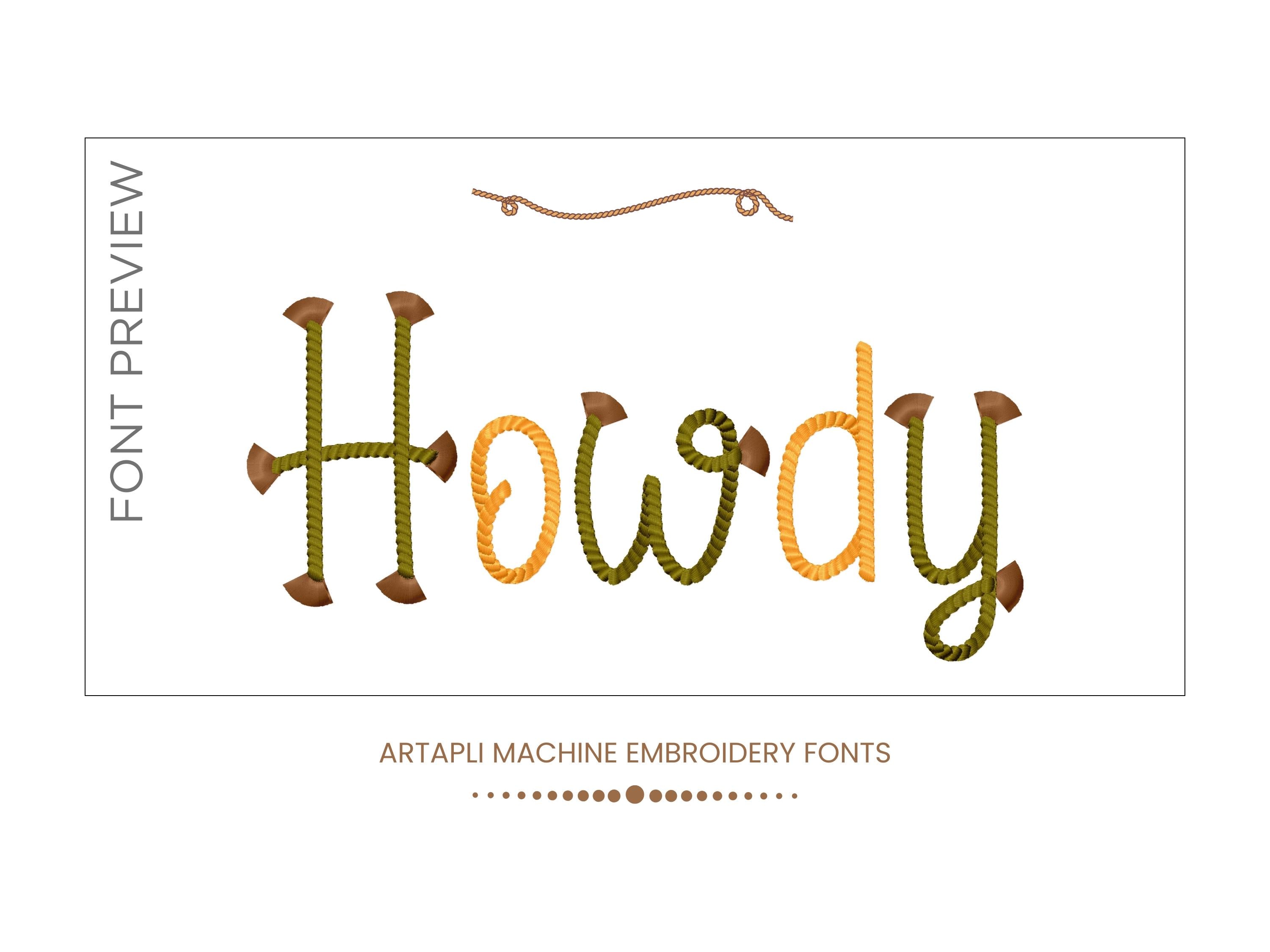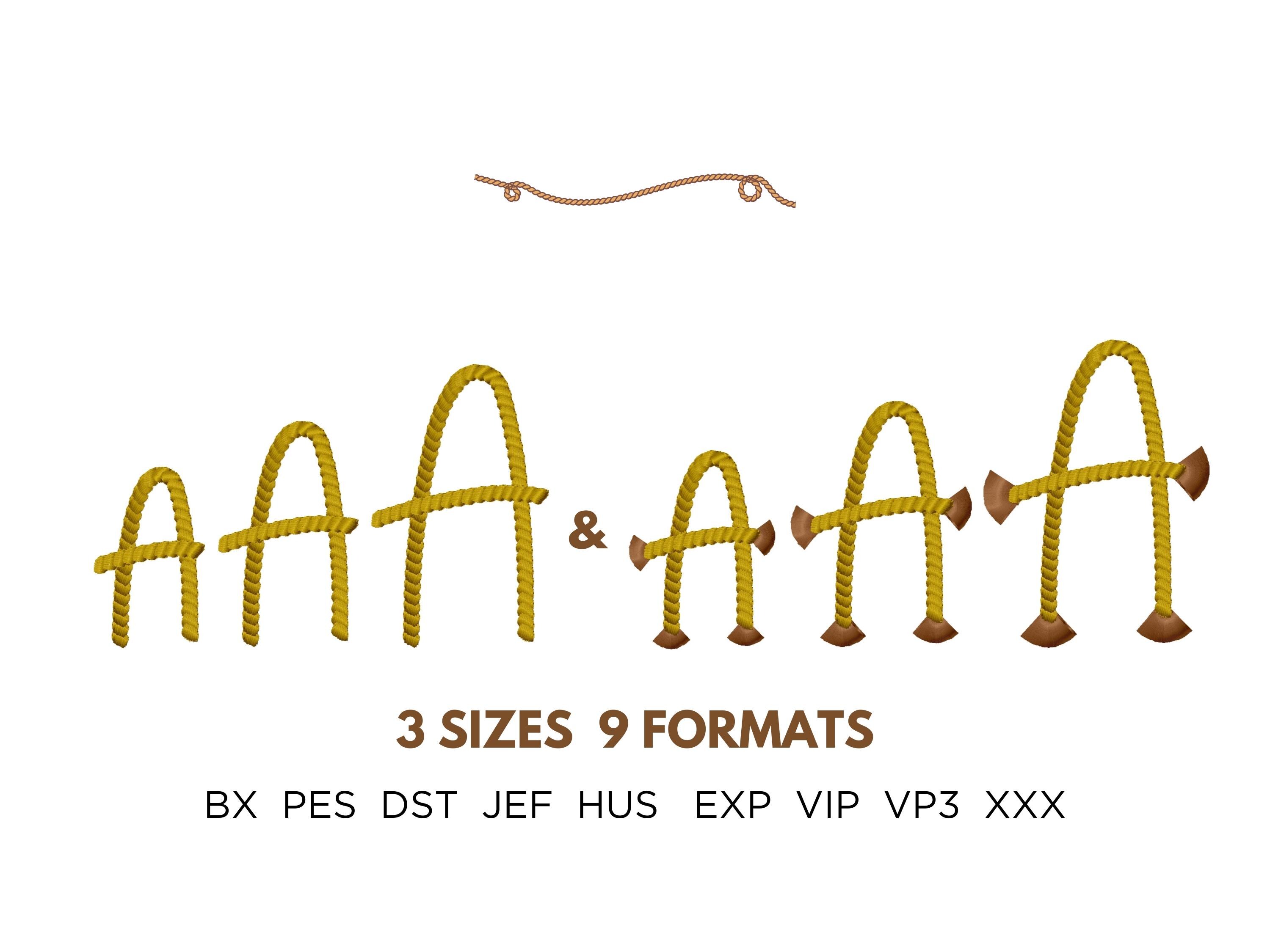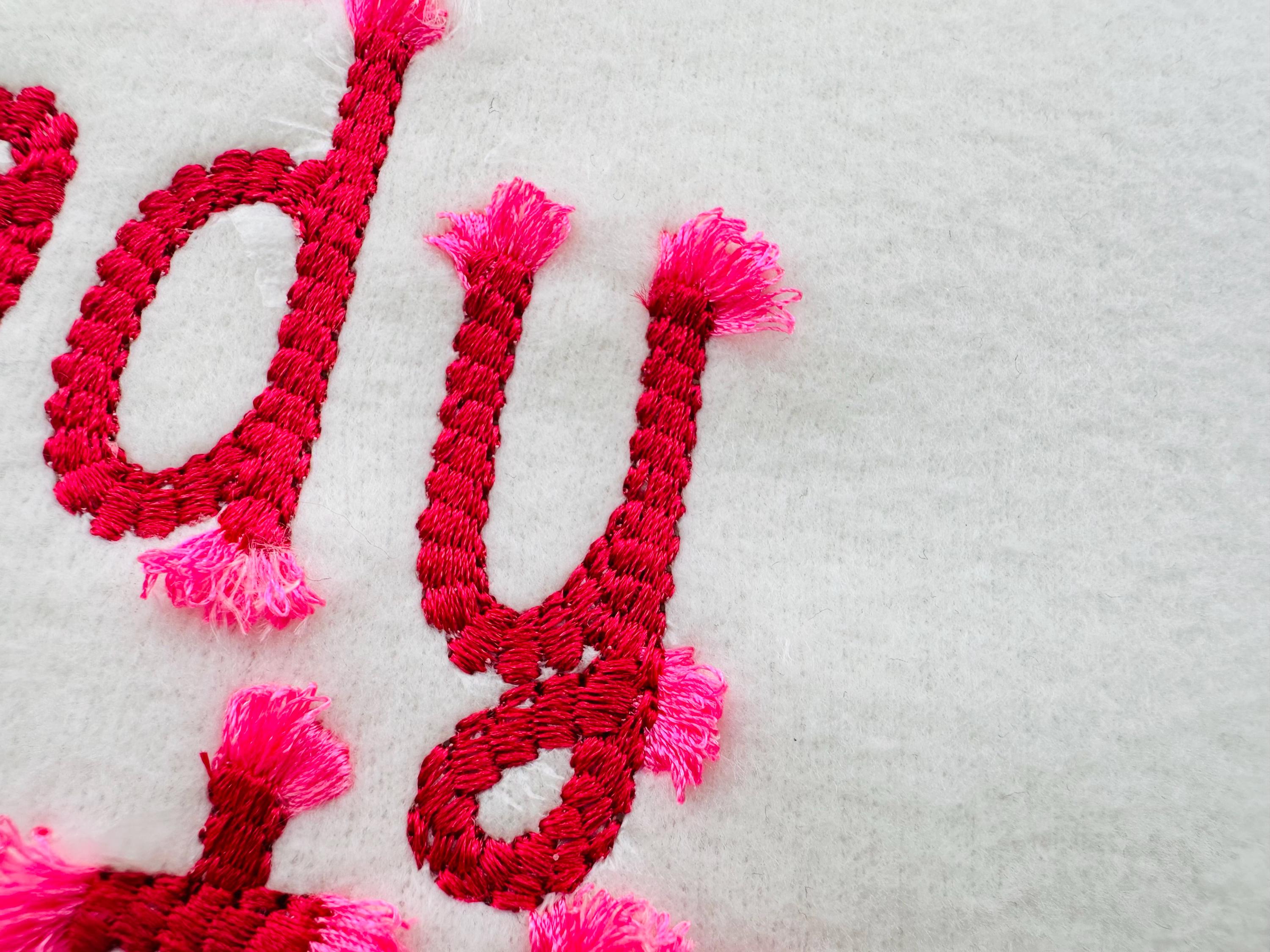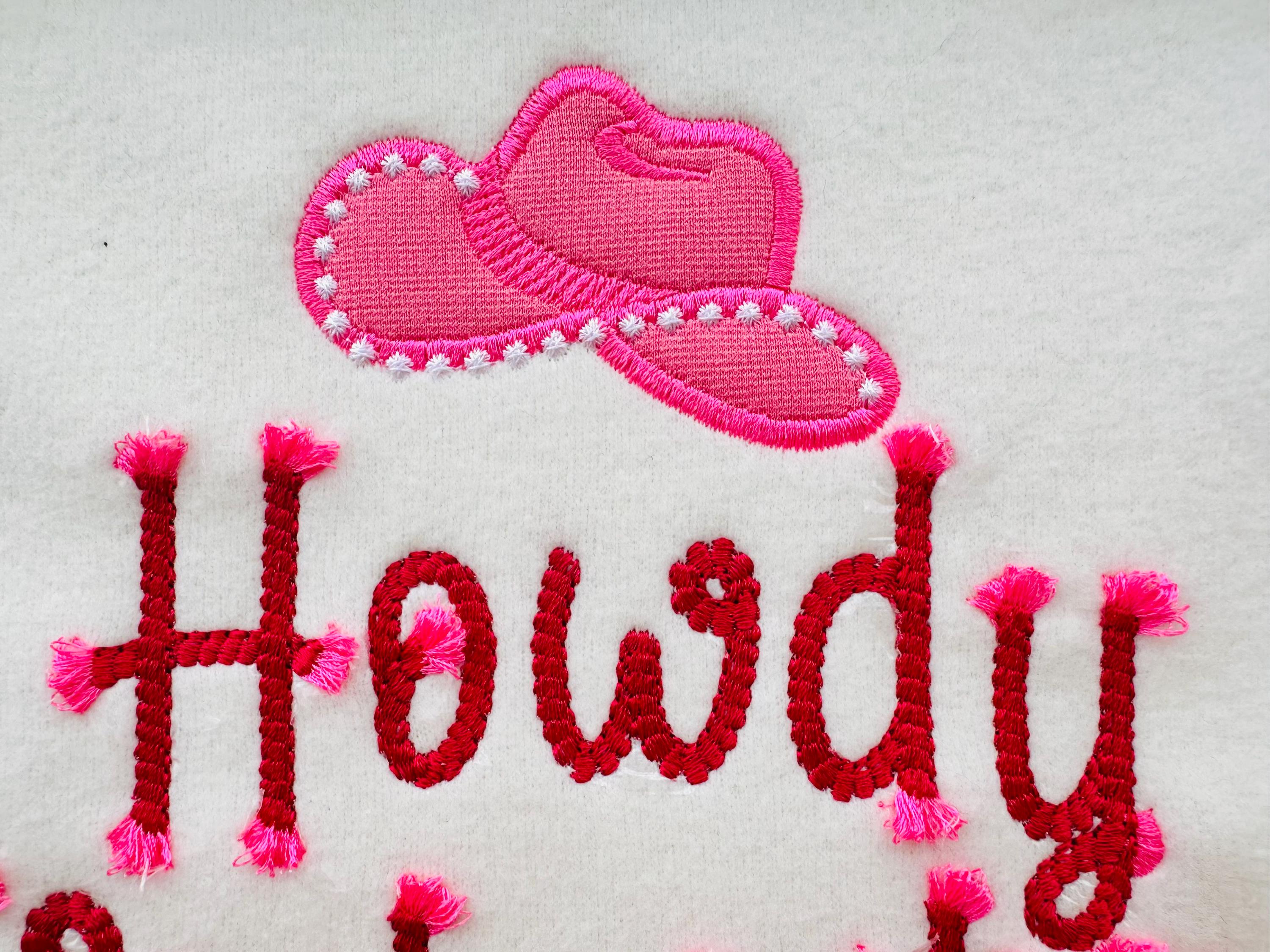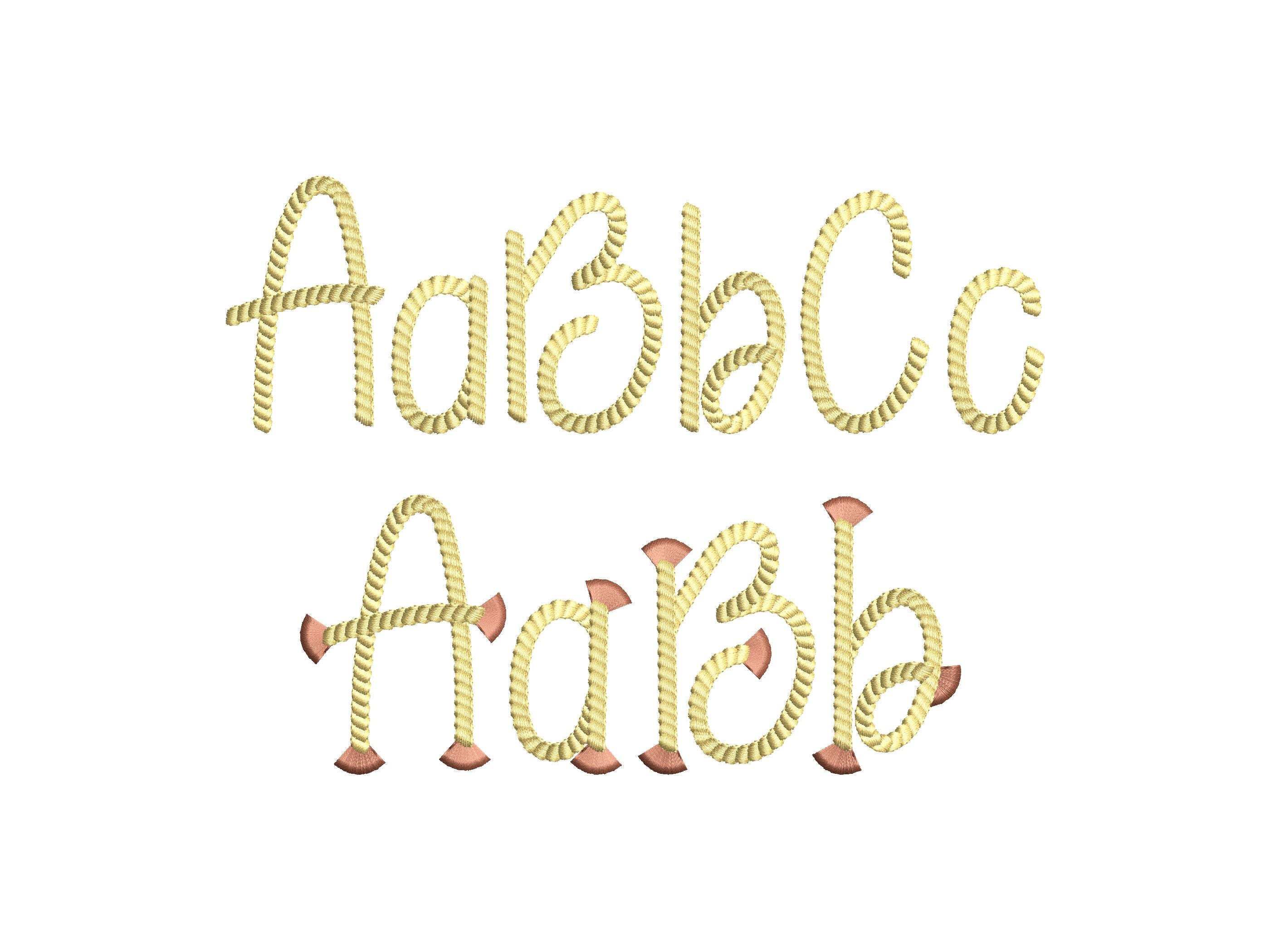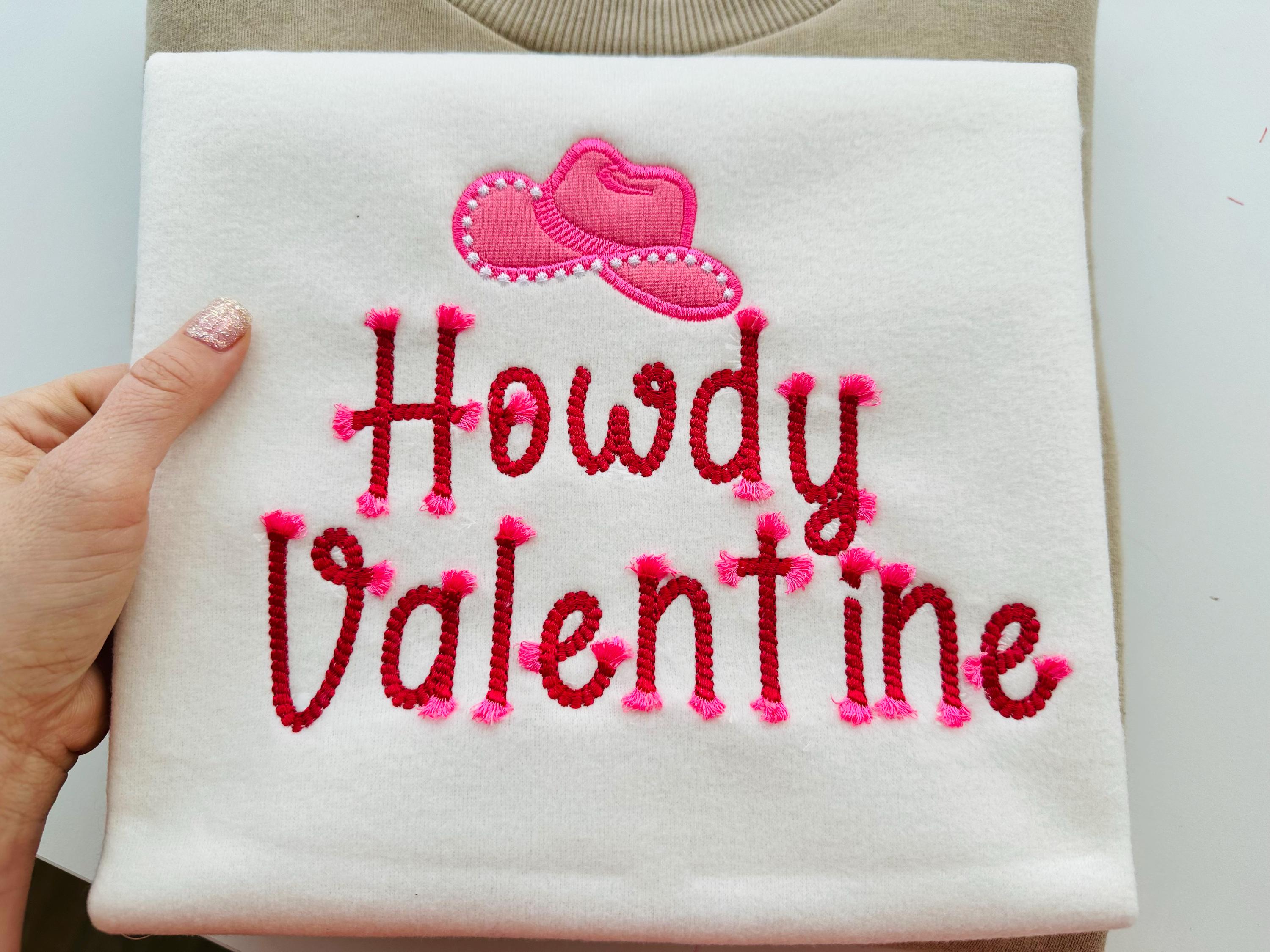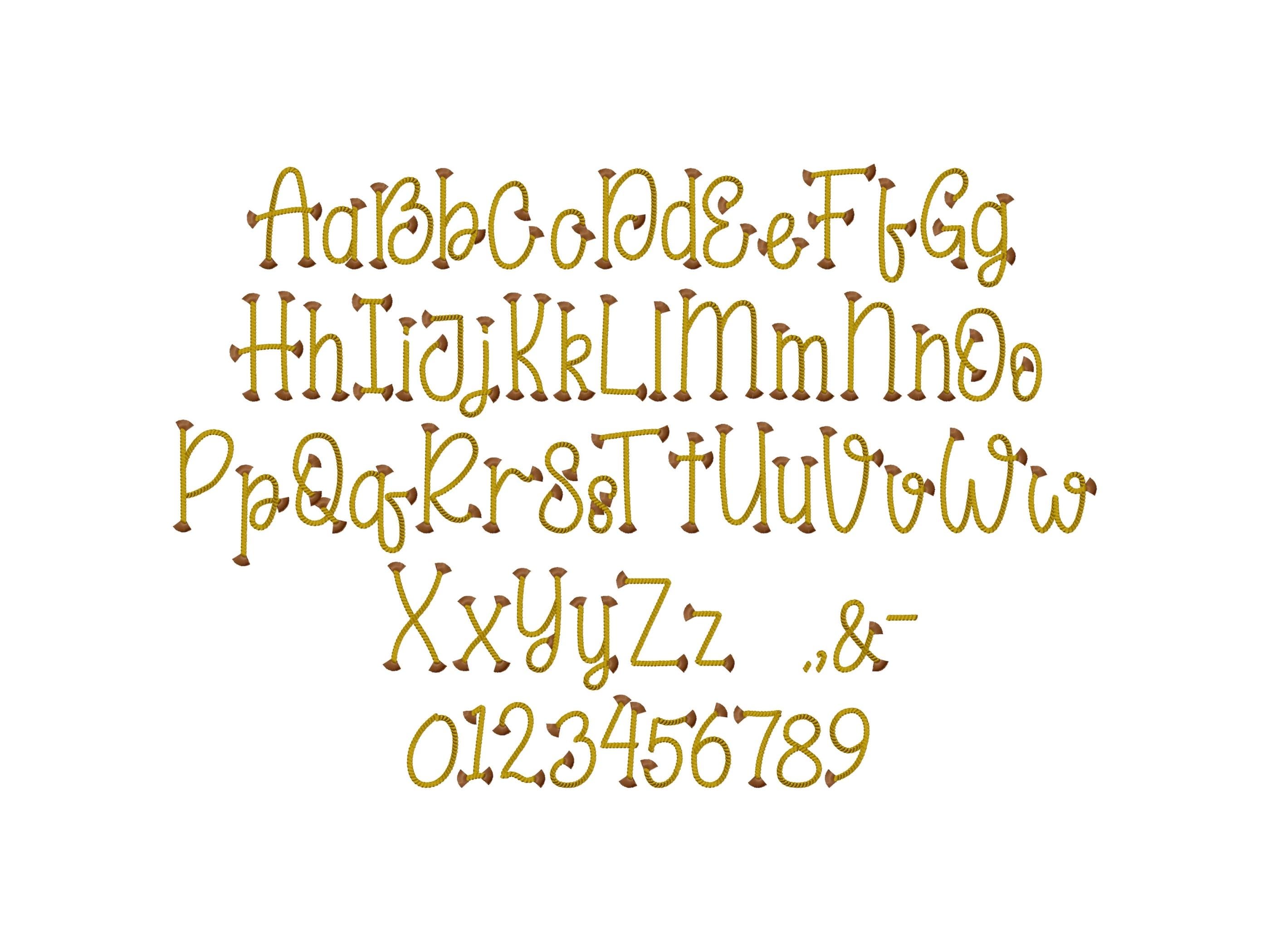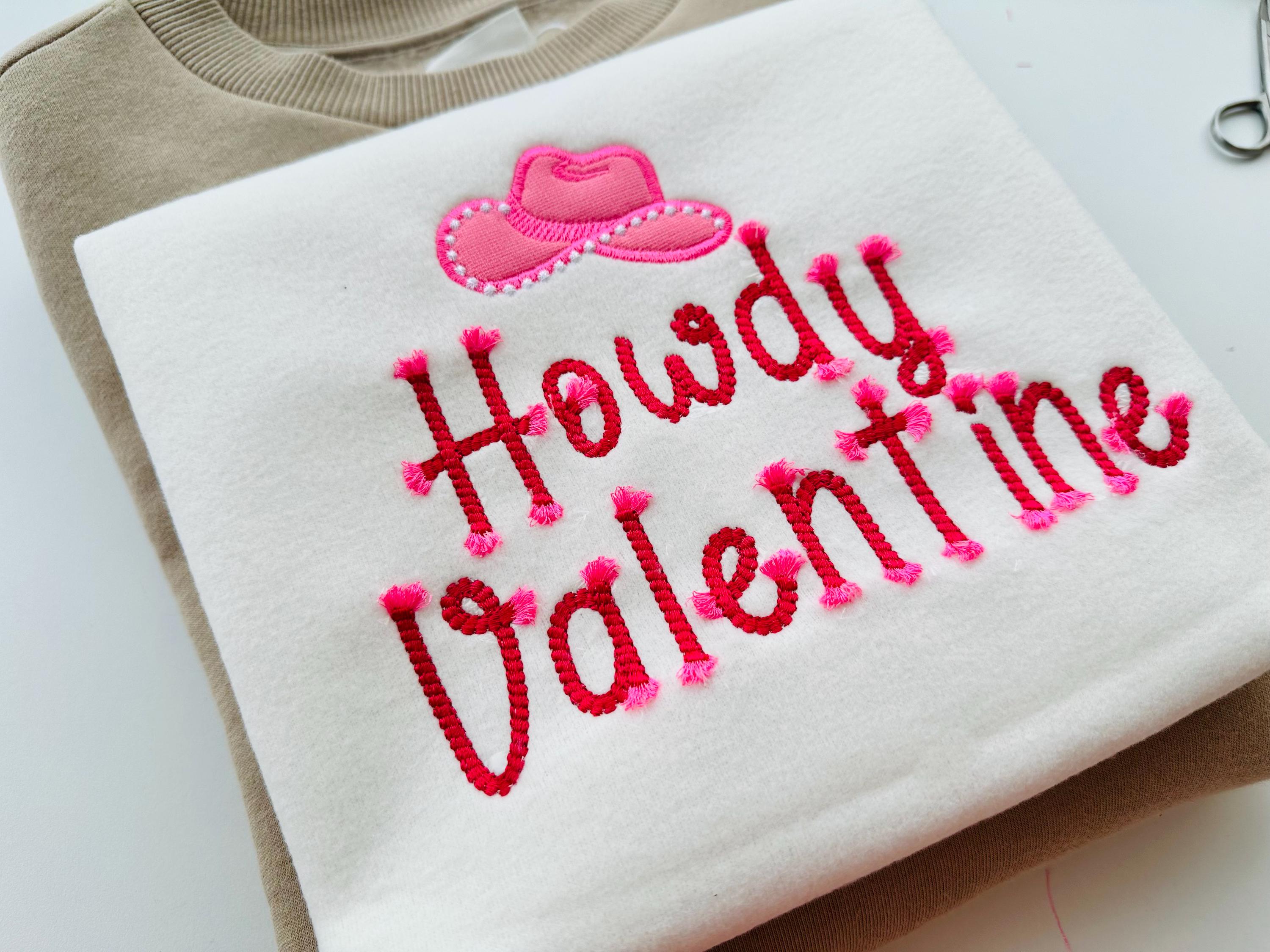
SET of 2 types blank rope stitch FONT and fringed tassels FONT alphabet monogram machine embroidery designs fringed ends tassel cowboy kids
Included 2 fonts:
blank font
fringed tassel font
Add a touch of Western flair to your projects with this Rope Font alphabet, complete with letters and numbers. Featuring fringed ends, this design is perfect for cowboy and cowgirl-themed items, Texas-inspired decor, and lasso-style monograms. Ideal for customizing kids' names, rodeo gear, and more!